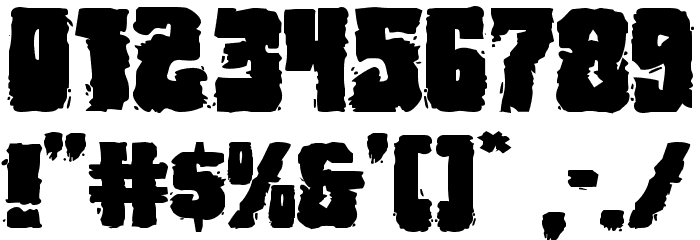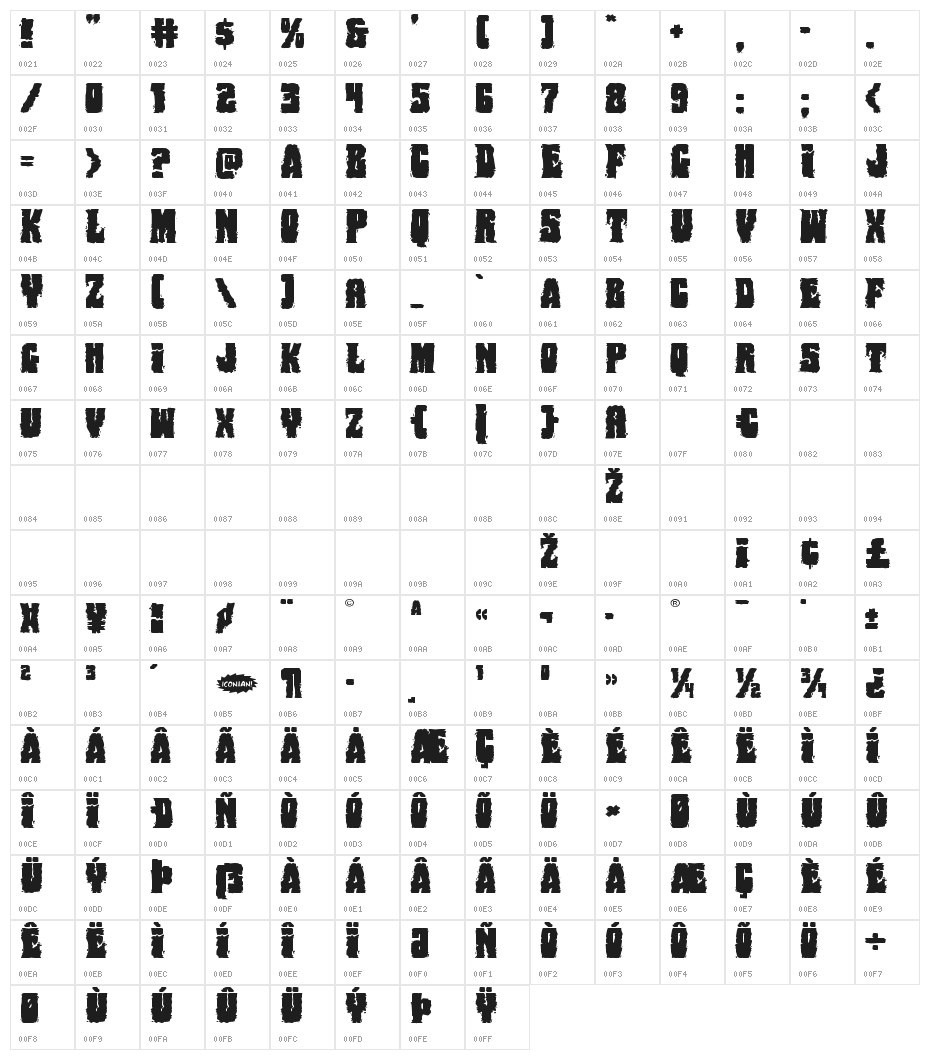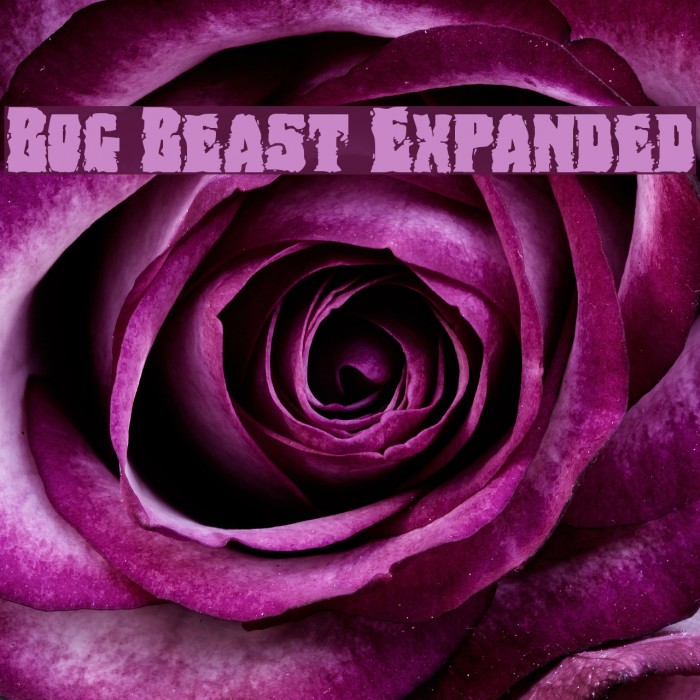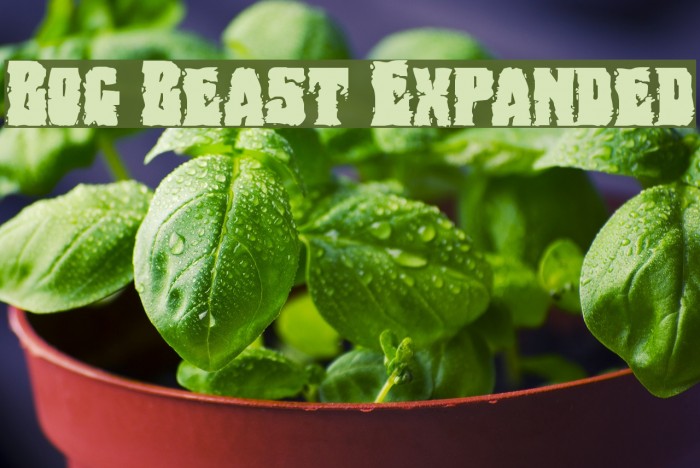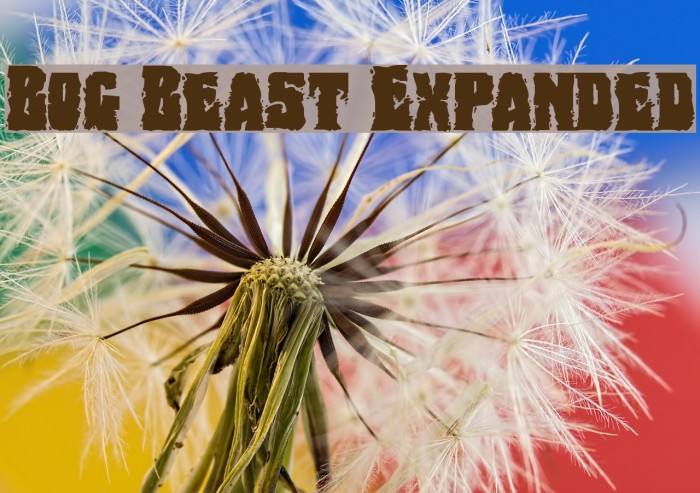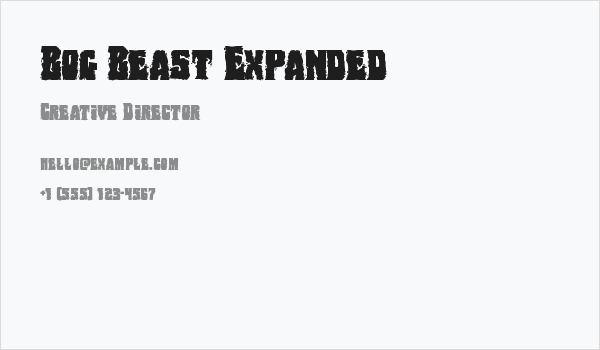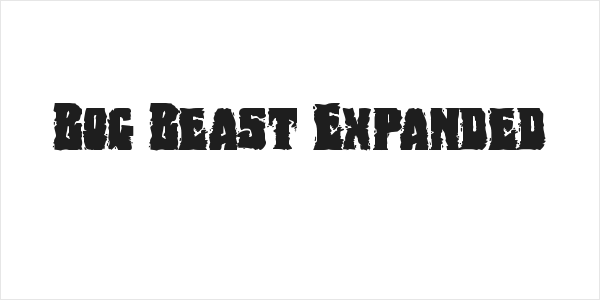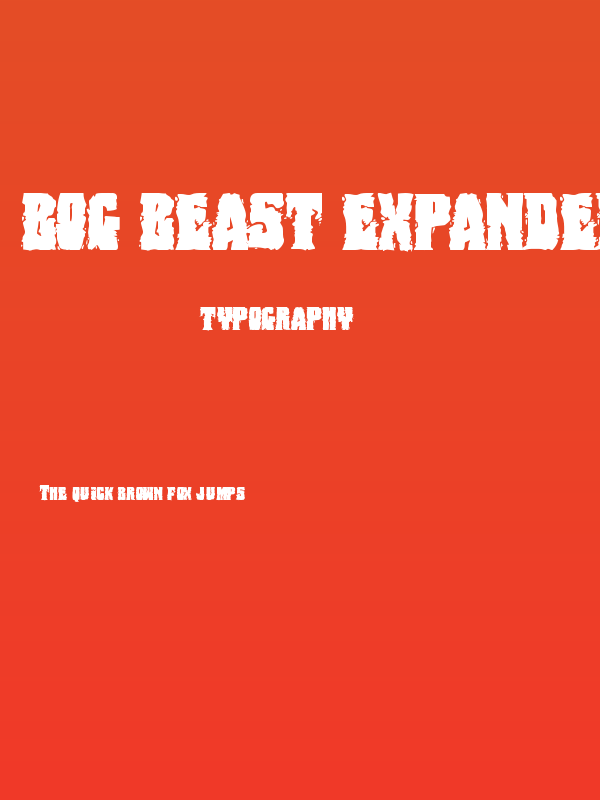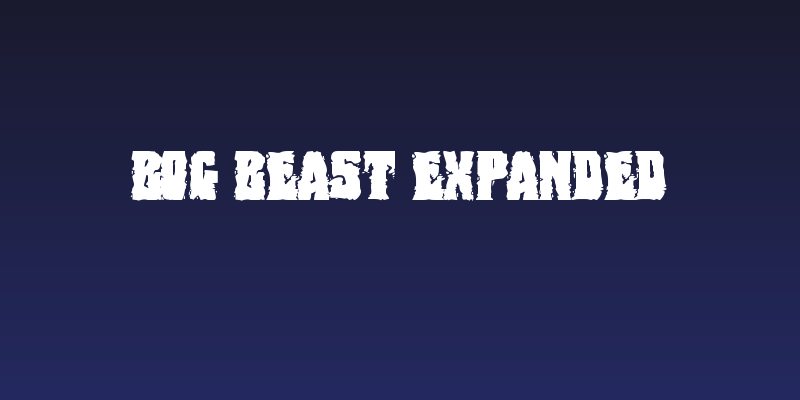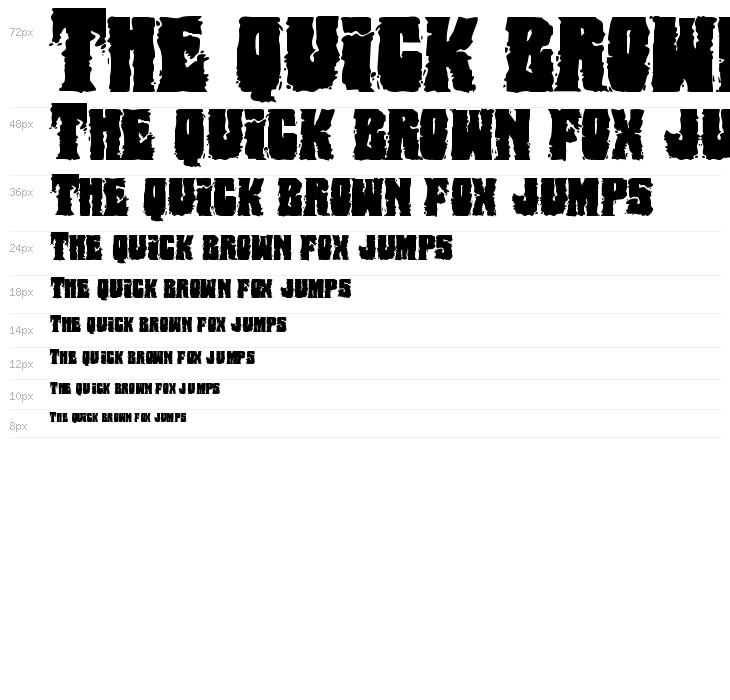
Bog Beast Expanded Font
Bog Beast Expanded Description
This font features a rugged and distressed appearance, with each character appearing as if it has been eroded or weathered over time. The bold and thick strokes give it a strong presence, while the irregular edges and rough texture add a sense of rawness and unpredictability. The uppercase and lowercase letters maintain a consistent style, ensuring readability despite the chaotic design. Numbers and special characters follow the same aesthetic, making the font versatile for various creative applications. Its unique style is perfect for projects that require a bold and unconventional look.